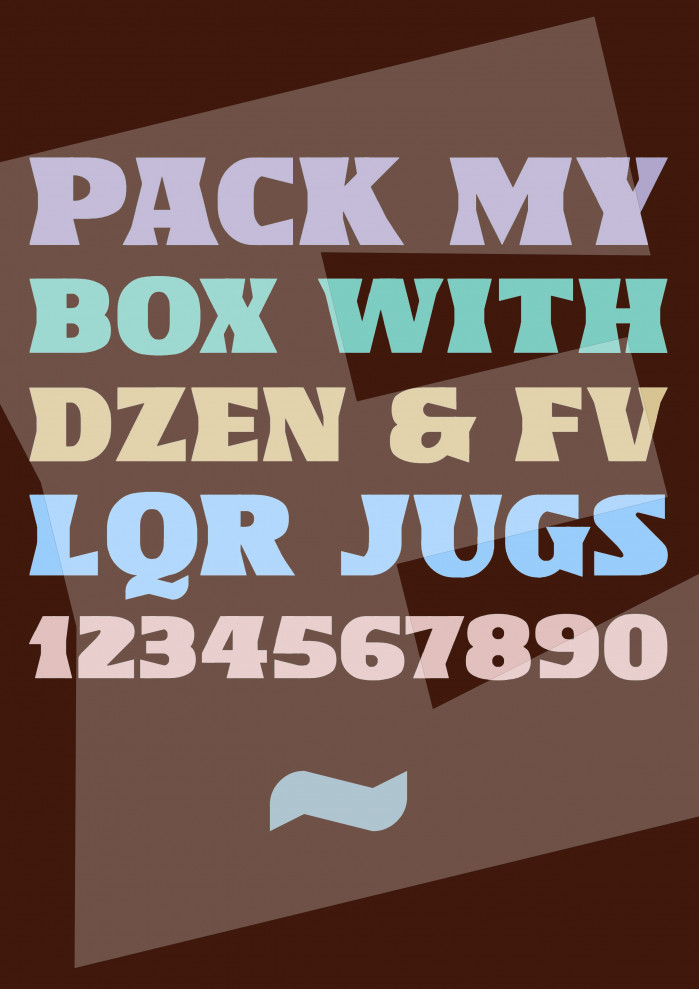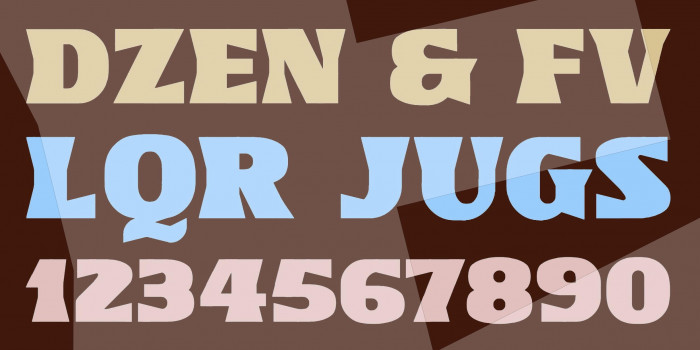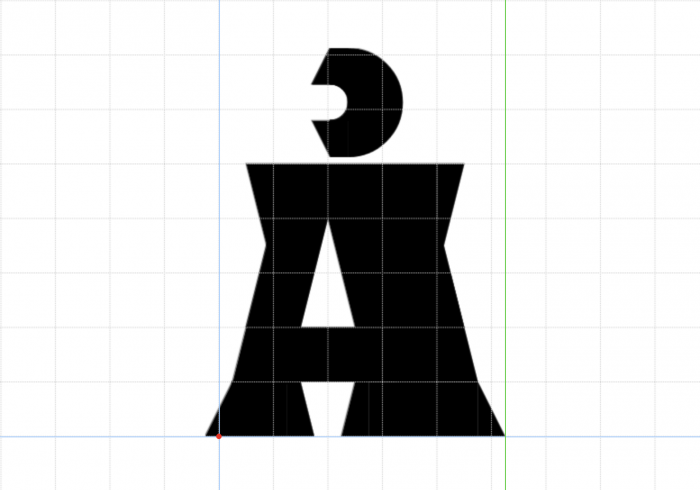
Twin brother of zeronda, with more spectacular and rare large serifs. This font is a pretty little thief to me: with its big serifs it stolen my hart. It was love at first sight, as soon as I started I couldn't stop adding them to the glyphs. Only caps/unicase, also includes an "a" and "e" alternates... and a little "c" in the "¢" glyph. Kern in progress. Enjoy.
Oh, I immediately want to make a Cyrillic alphabet for this too, great job!
Serif-ic! It has a more playful attitude than zeronda. Who knew more exaggerated slants can evoke a different feel to a typeface? 👏▲▼✨
Excellent letterforms, these extended 'serifs' give them lots of personality!
What a magnificent font! All the letters look great. The Q is my favourite. The special characters are also super. The dagger may go down to descender territory. It depends on the intended use of the font. In the case of Zerondo, a capitals-only typeface, it might be a good choice. The double dagger is missing. Congratulations. 10/10
@faux_icing, @four and @Frodo7: Thanks a million, compañeros! It seems that the attempt to enlarge the serifs has worked well this time, I'm very glad you liked it. And yes, I'm going to try a double dagger to include it. Thanks again, it's a pleasure to be here with people like you.
I will try to add Greek on this typeface. It is awesome, too, so my rating is 10 out of 10.
Maybe adding Vietnamese to it myself isn't a big deal, right?
@elmoyenique: Everything was fine, except the hookabove (the look-like-question mark on the Ả), I can't thing of any great design for it, ahhh!
And how about an "A" with the "cedilla" on top? It's possible?
@elmoyenique: Maybe that can work, I'll try it out
Kinda looks like Tomato, the Three's Company title font